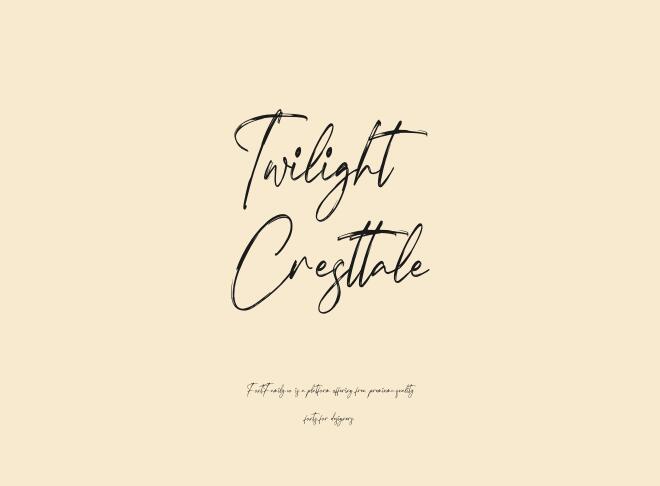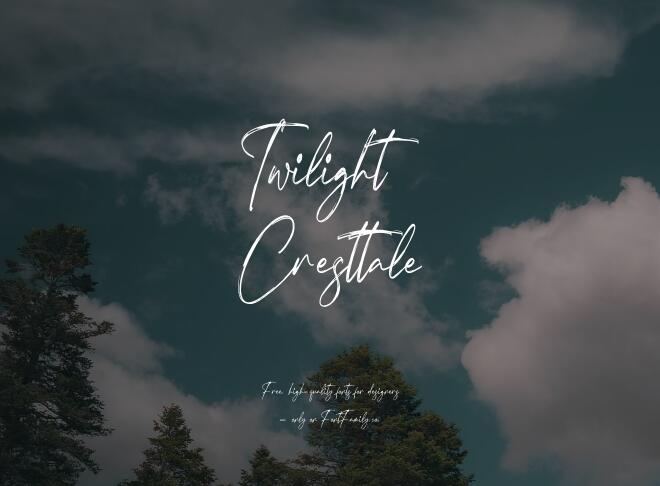
Twilight Cresttale Font
Twilight Cresttale Font is a unique, handcrafted typeface designed by Cresttale Foundry. This script font stands out with its elegant and decorative design, making it perfect for invitations, stationery, logo design, branding, and stylish social media posts. Its flowing characters are reminiscent of classic calligraphy, yet offer a modern twist that sets it apart from other fonts. Twilight Cresttale Font is free for personal use and offers a broad range of glyphs and swashes, allowing designers to create unique, personalized designs. Its versatility and unique charm make it an excellent choice for any designer looking to add a touch of elegance and individuality to their projects.